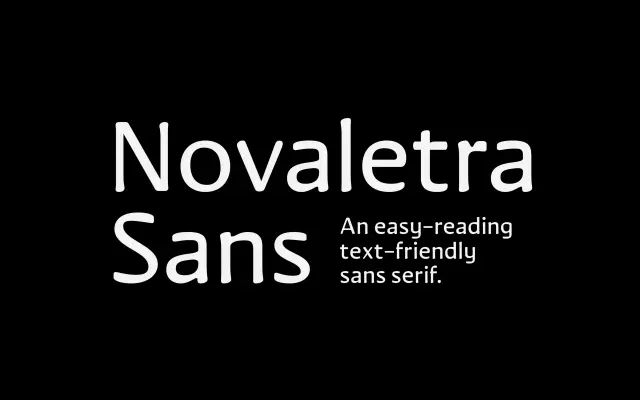
Novaletra Sans
A humanist sans with brush-informed construction and subtle flares, designed as a companion to Novaletra Serif for longform reading across Latin and Cyrillic scripts.
Subtle flares and low stroke contrast give this sans-serif a warmth typically absent from the genre, drawing on brushstroke geometry to soften the letterforms without disrupting reading rhythm. Fourteen styles span seven weights from Light to Heavy, each with a matching italic, making it a practical choice for books, newspapers and articles. Language support covers Latin Extended with Vietnamese, plus a full Cyrillic set encompassing Belarusian, Bulgarian, Ukrainian, Serbian and several Central Asian languages.
Described explicitly as a humanist design, with brush-informed construction, subtle flares and low stroke contrast that differentiate it from neutral or geometric sans families.